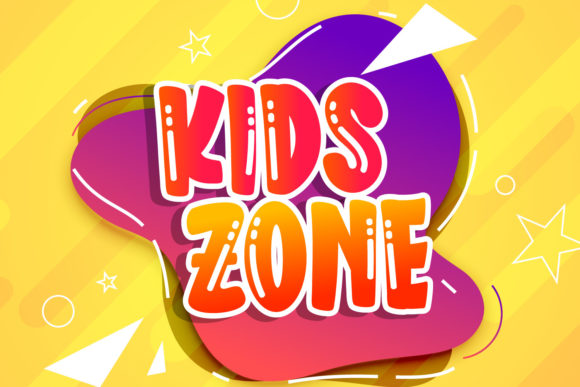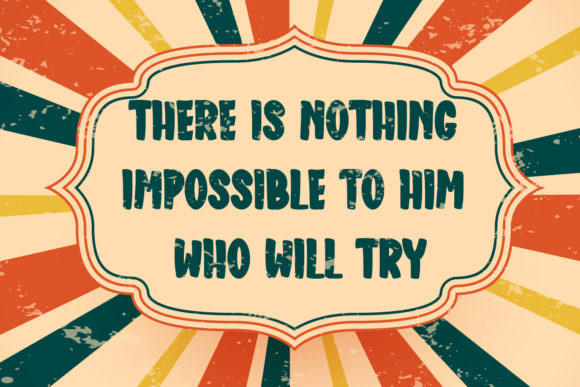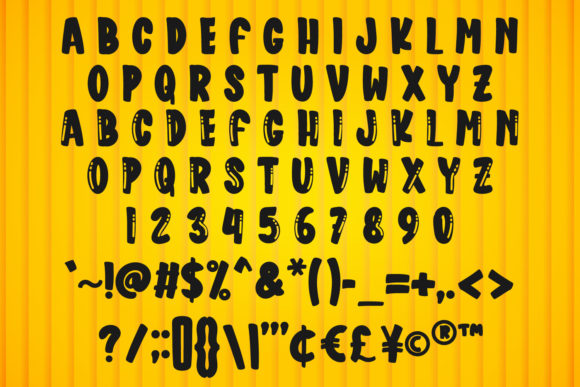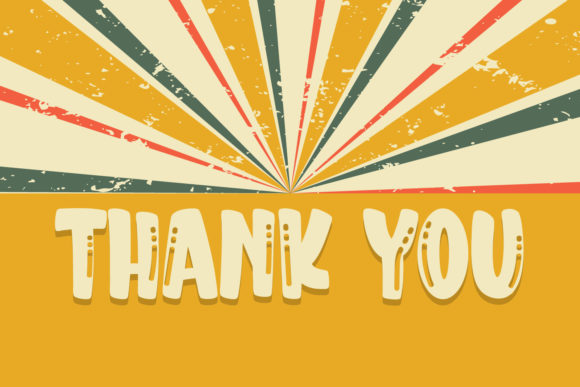
Introducing Game Vintage Font: The Perfect Addition to Your Font Library
Are you a designer or crafter looking for a font that can add a touch of drama and fun to your creations? Look no further than Game Vintage Font! This cool and fun display font is perfect for titles or words that need a more dramatic emphasis. In this article, we’ll explore the features and benefits of Game Vintage Font, and why it’s a wonderful asset to your font library.
What is Game Vintage Font?
Game Vintage Font is a display font designed to make a statement. Its unique and playful design makes it perfect for adding a touch of personality to your creations. Whether you’re working on a graphic design project, crafting a logo, or creating digital art, Game Vintage Font is sure to impress.
Key Features of Game Vintage Font
- Cool and Fun Design: Game Vintage Font has a unique and playful design that’s sure to grab attention.
- Perfect for Titles and Emphasis: This font is designed specifically for titles or words that need a more dramatic emphasis.
- Versatile: Game Vintage Font can be used on a wide range of topics and projects, from gaming and entertainment to fashion and lifestyle.
Benefits of Using Game Vintage Font
So why should you choose Game Vintage Font for your next project? Here are just a few benefits of using this amazing font:
- Adds Drama and Emphasis: Game Vintage Font is designed to make a statement, adding drama and emphasis to your titles and text.
- Increases Visual Appeal: The unique and playful design of Game Vintage Font is sure to grab attention and increase the visual appeal of your creations.
- Enhances Creativity: With Game Vintage Font, you can add a touch of personality and whimsy to your designs, enhancing your creativity and self-expression.
- Perfect for Branding and Marketing: This font is perfect for creating eye-catching titles and text for branding and marketing materials, such as logos, posters, and social media graphics.
- Is Game Vintage Font easy to read?: Game Vintage Font is a display font designed for titles and emphasis, and may not be suitable for body text or long paragraphs.